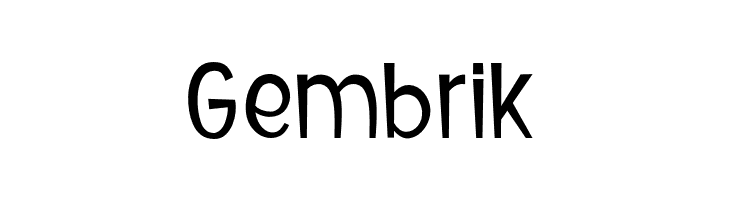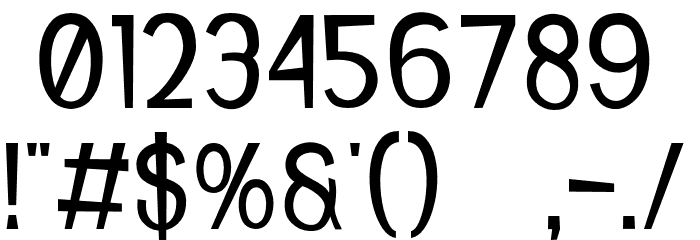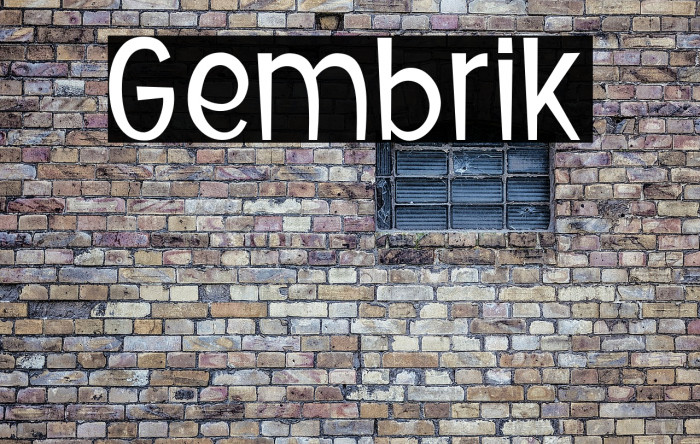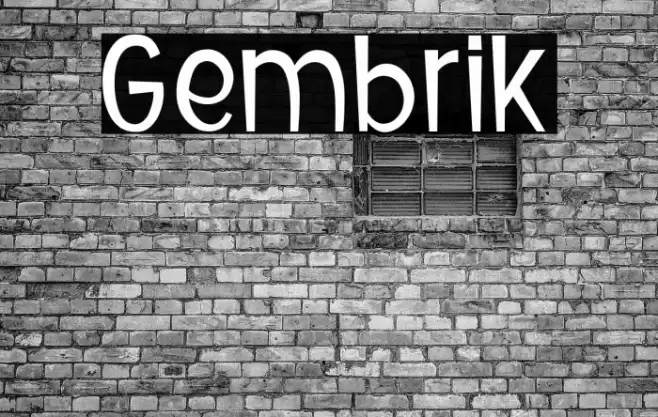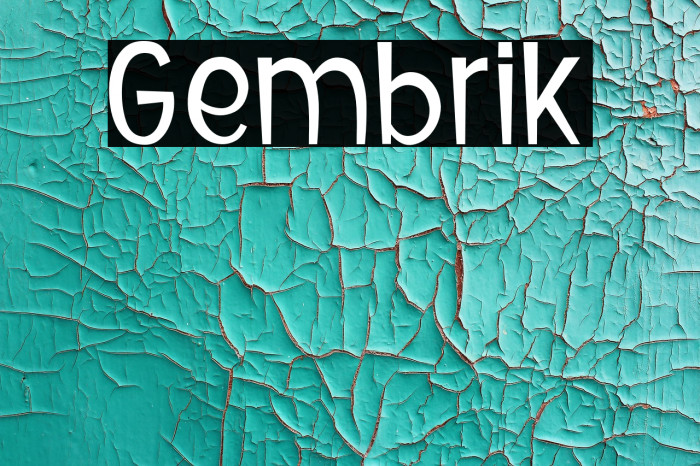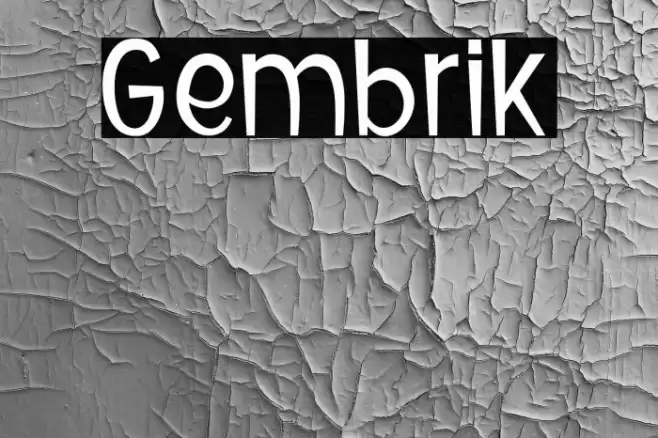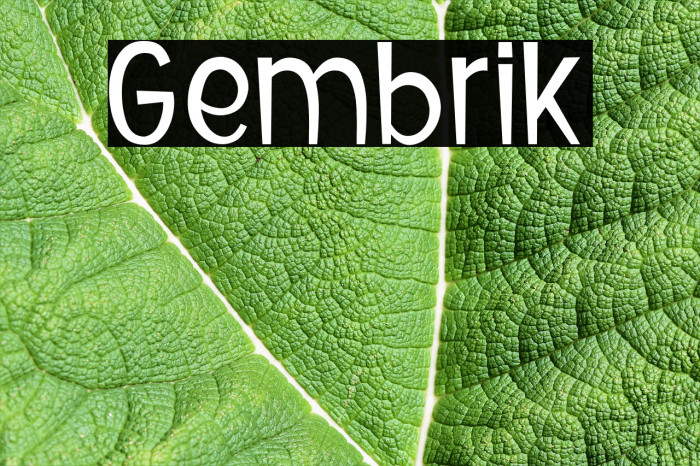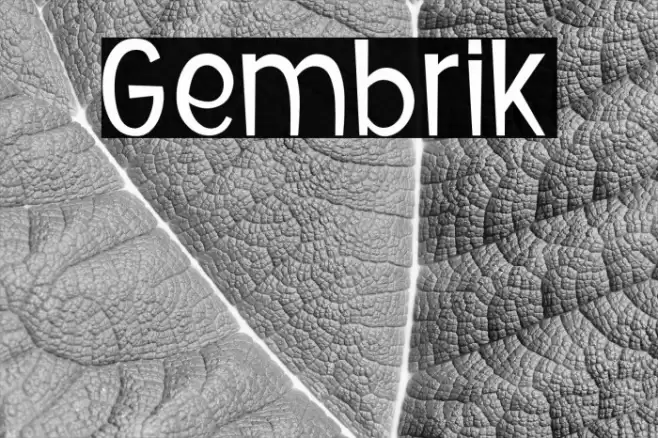
Gembrik Font
| समग्र शैली | Playful |
| उपयोग का मामला | Headlines, Logos |
| सुझाए गए प्रोजेक्ट | Ideal for children's books, playful branding, casual invitations, and creative posters. |